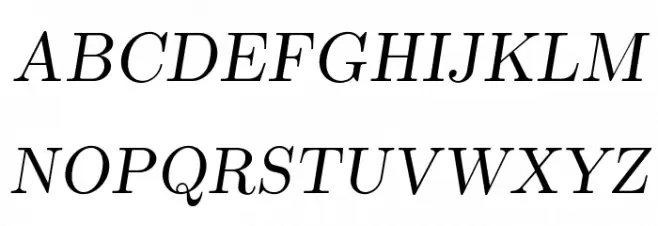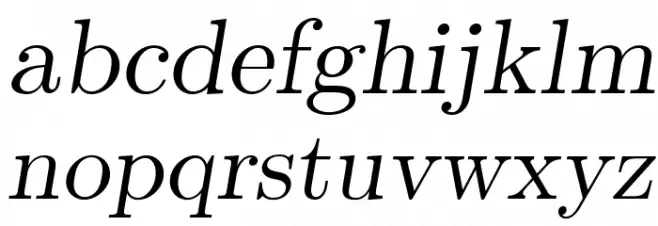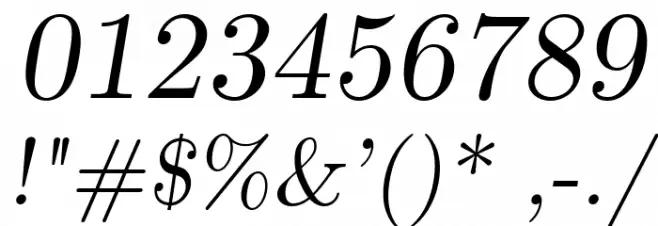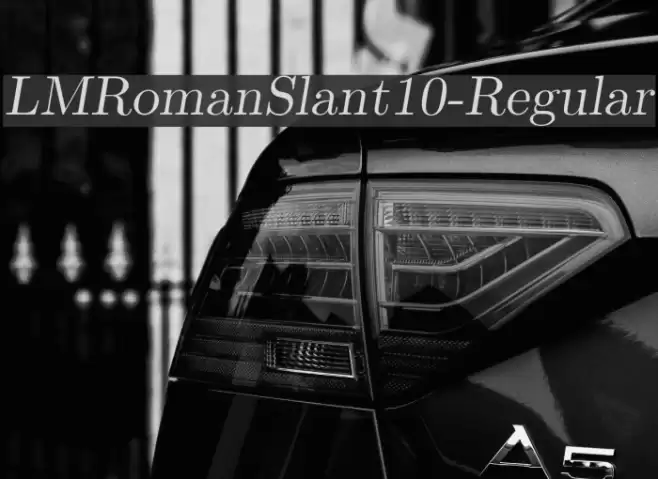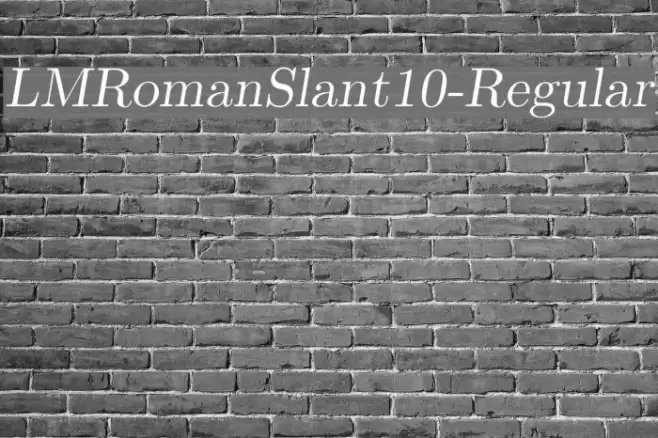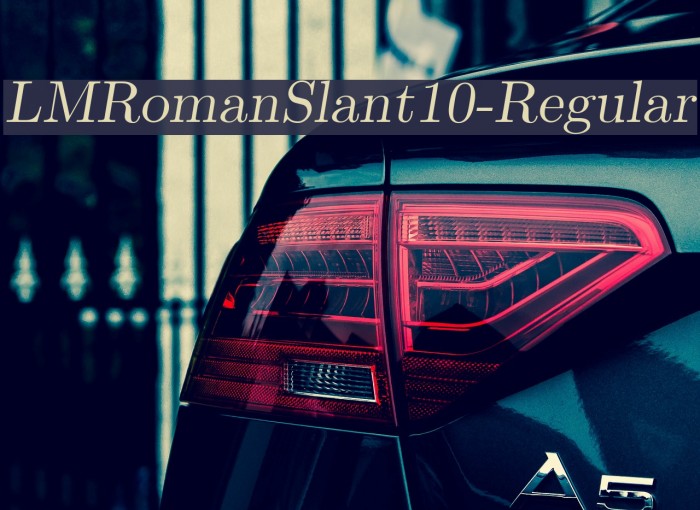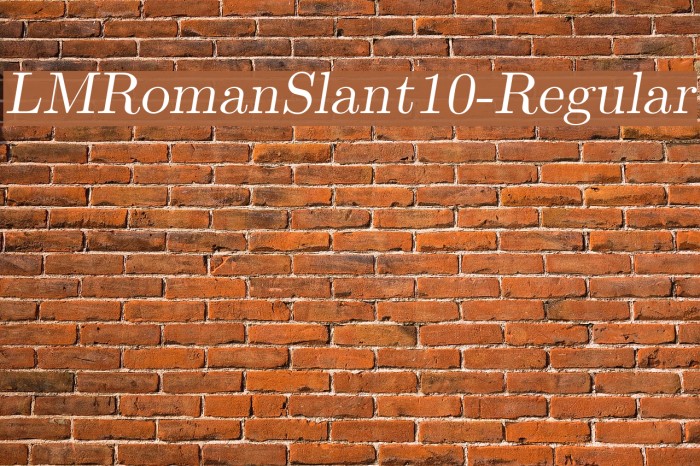
LMRomanSlant10-Regular
This font exhibits a classic serif style with a distinct slant, giving it an elegant and sophisticated appearance. The characters are well-defined with moderate contrast between thick and thin strokes, enhancing readability while maintaining a stylish look. The uppercase letters are slightly taller than the lowercase, providing a balanced and harmonious feel. The numerals are consistent with the overall design, ensuring uniformity across different text elements. Special characters are crafted with the same attention to detail, making this font versatile for various applications.
Elegant serif font with a slant, featuring moderate contrast and classic styling.
- Category: Serif
- Overall Style: Classic